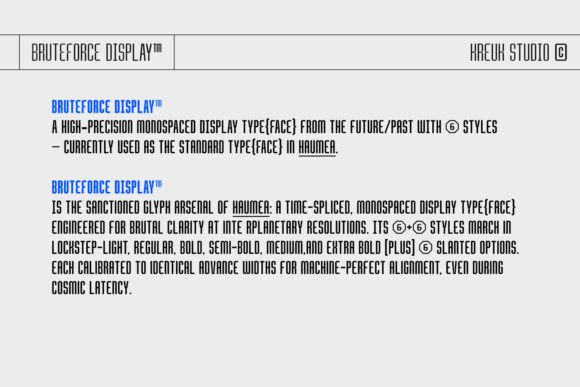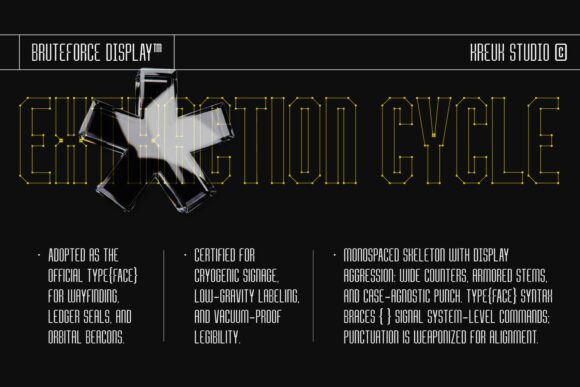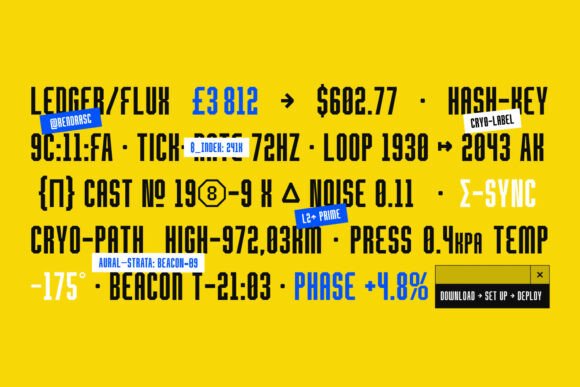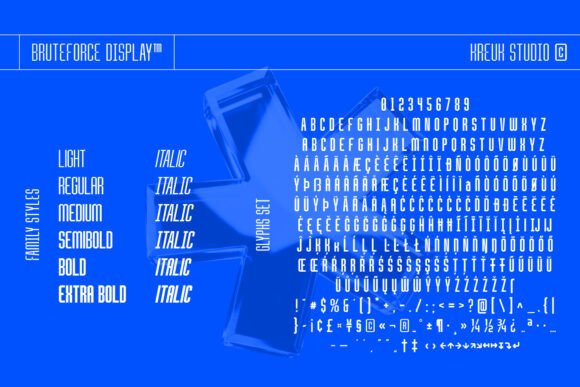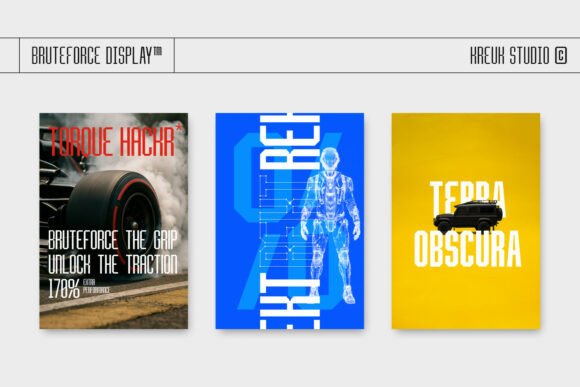
I still remember the frustration of working on a project, hours spent crafting the perfect design, only to realize that the font I chose wasn’t quite right. The client wanted something bold, yet precise; modern, yet authoritative. I scoured the internet, tried countless fonts, but nothing seemed to fit the bill. That was until I stumbled upon Bruteforce Display™.
This contemporary geometric display typeface has been a game-changer for me, and I’m excited to share my experience with you. Bruteforce Display™ blends precision engineering with bold visual energy, making it perfect for creatives who value control, clarity, and confidence.
A Closer Look at Bruteforce Display™
So, what makes Bruteforce Display™ so special? Here are a few key features that caught my attention:
- ✨ Angular geometry: Each letterform is crafted with precision and care, resulting in a typeface that exudes confidence and authority.
- âś… Rhythmic balance: The font’s clean geometry and distinctive edge make it perfect for projects that demand both technical precision and expressive impact.
- 🔍 Structural strength: Bruteforce Display™ commands attention in any setting, from posters and logos to digital interfaces and futuristic branding.
- ✨ The font’s versatility – available in six carefully developed weights, from Light to Extra Bold, with matching Italics.
- âś… The attention to detail – every style is optimized for consistent spacing, optical balance, and high-contrast legibility at display sizes.
- 🔍 The unique blend of precision engineering and bold visual energy.
While Bruteforce Display™ is an excellent font, there are a few things to keep in mind:
- ⚠️ The font’s geometric style may not be suitable for body text or smaller font sizes.
- 🤔 Some users may find the font’s boldness overwhelming for certain projects.
Bruteforce Display™ was designed with the modern creative in mind. The font’s geometric style and bold visual energy make it perfect for designers who value control, clarity, and confidence. The designer’s inspiration for Bruteforce Display™ came from the world of architecture and engineering, where precision and accuracy are paramount.
| Font Name | Bruteforce Display Font |
| Author | Kreuk Studio |
| What is Bruteforce Display™? | Bruteforce Display™ is a contemporary geometric display typeface designed for creatives who value control, clarity, and confidence. |
| What are the key features of Bruteforce Display™? | The font features six weights with matching Italics, angular geometry, rhythmic balance, and structural strength. |
| Can I use Bruteforce Display™ for body text? | While Bruteforce Display™ is designed for display sizes, it may not be suitable for body text or smaller font sizes due to its geometric style. |